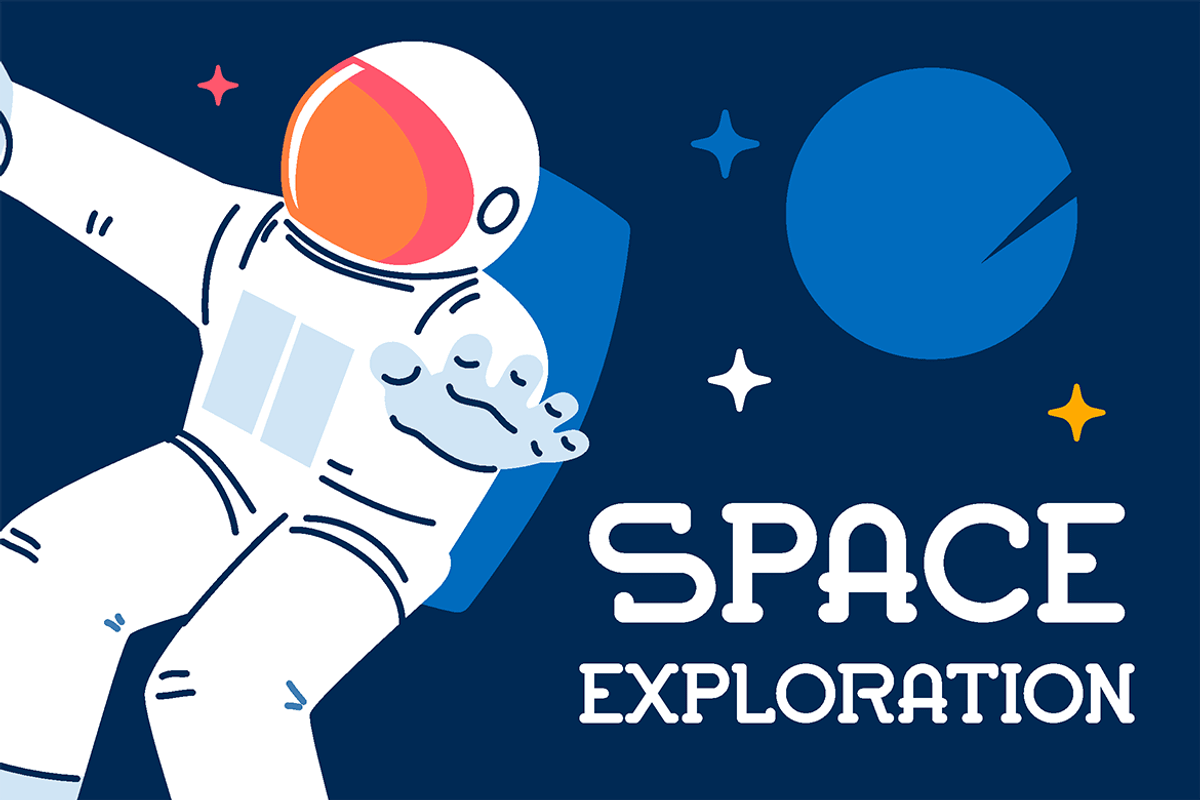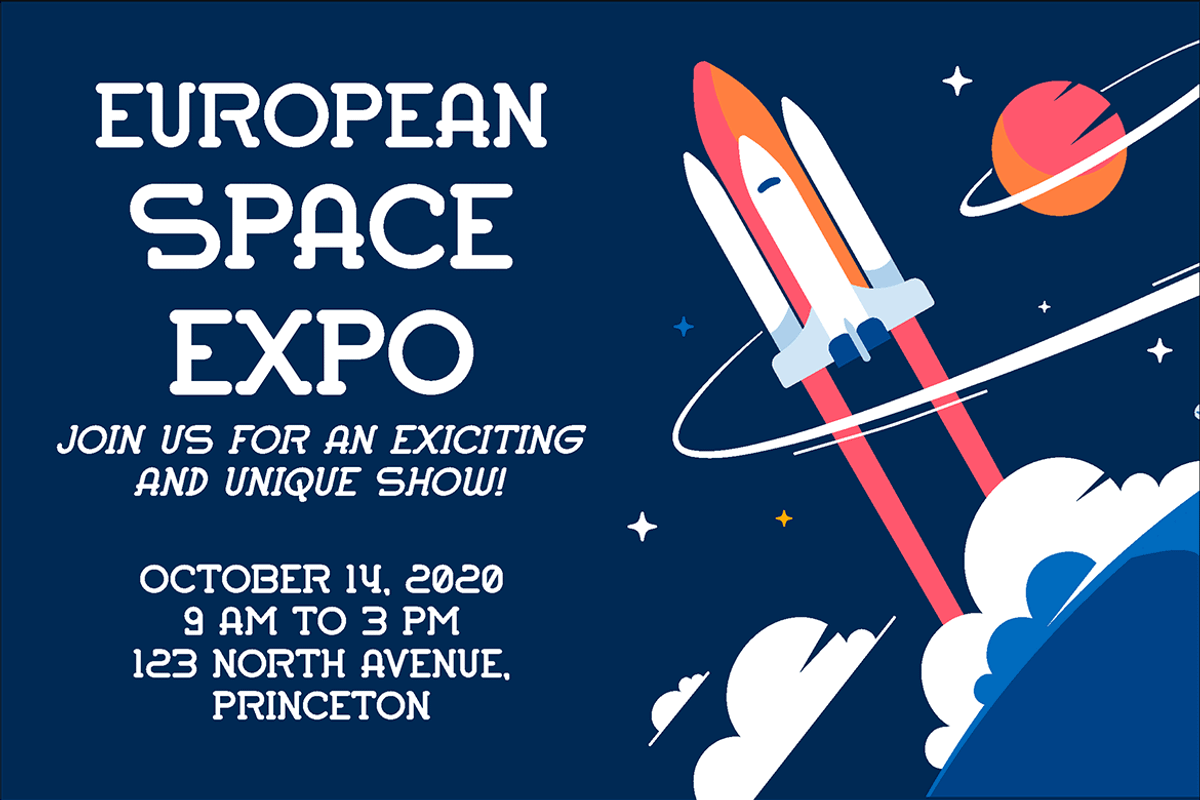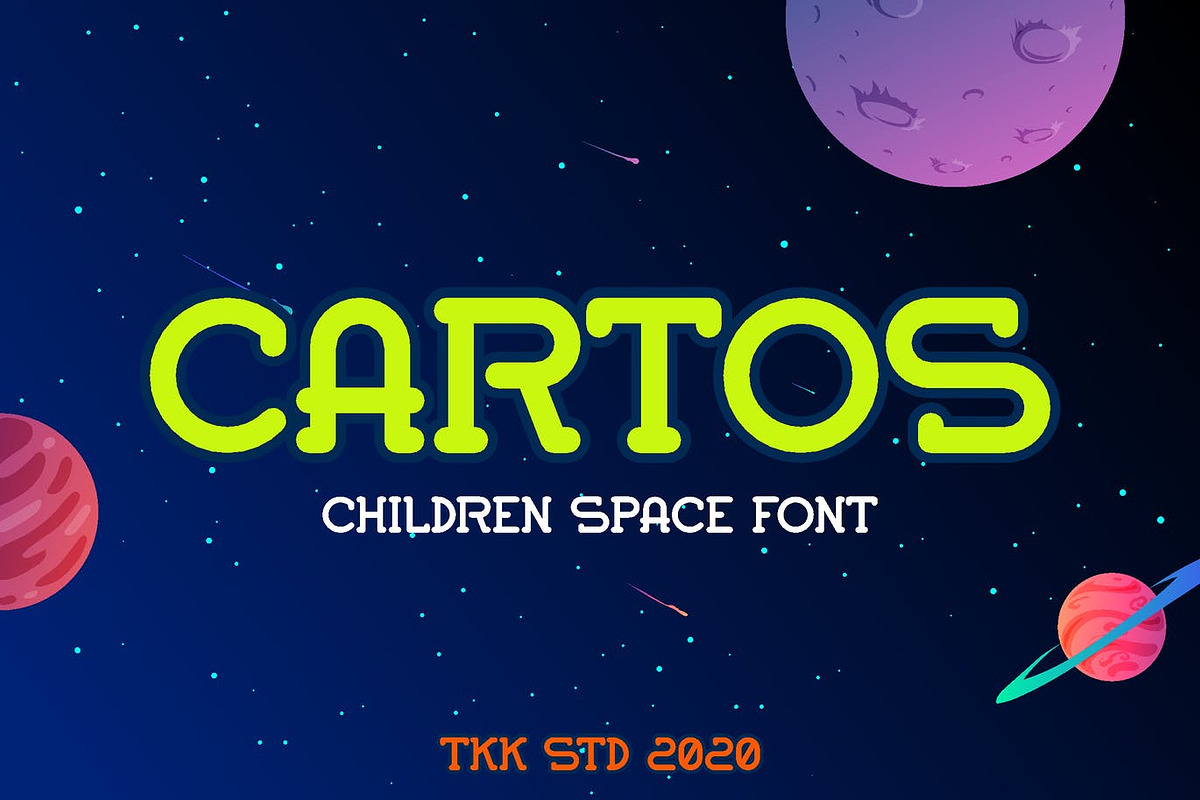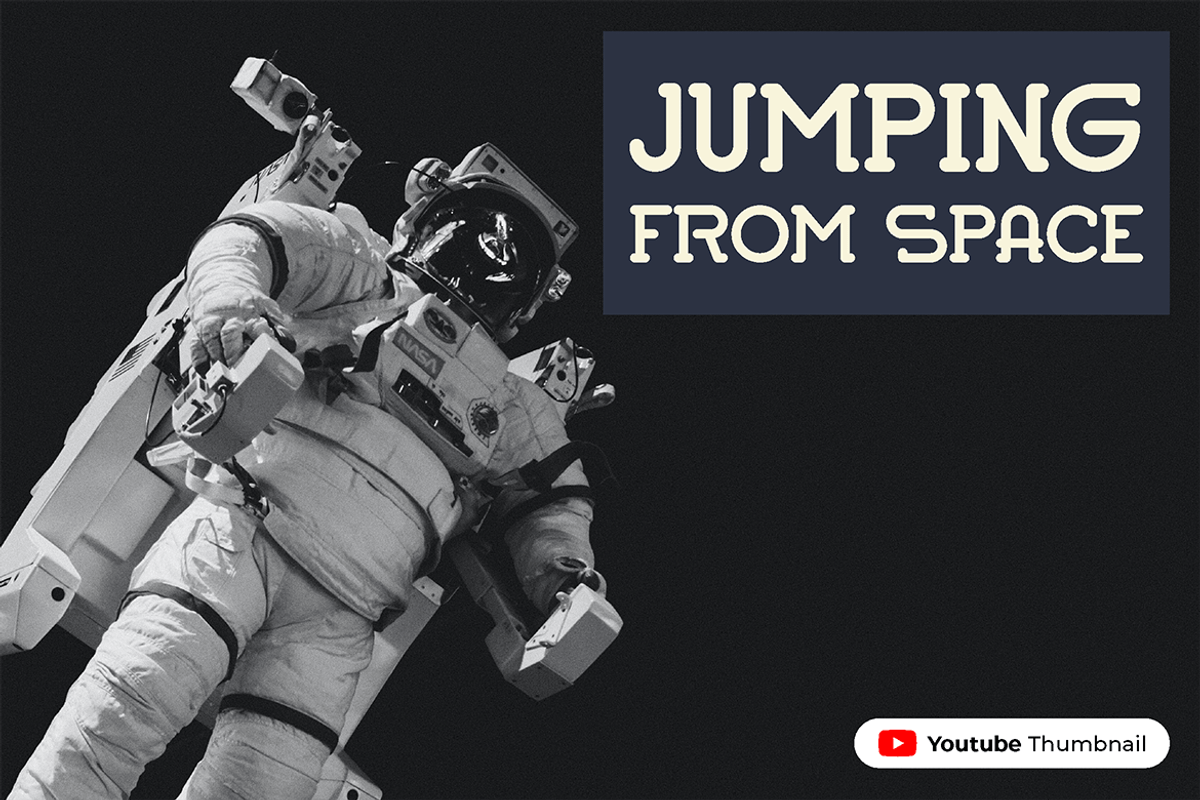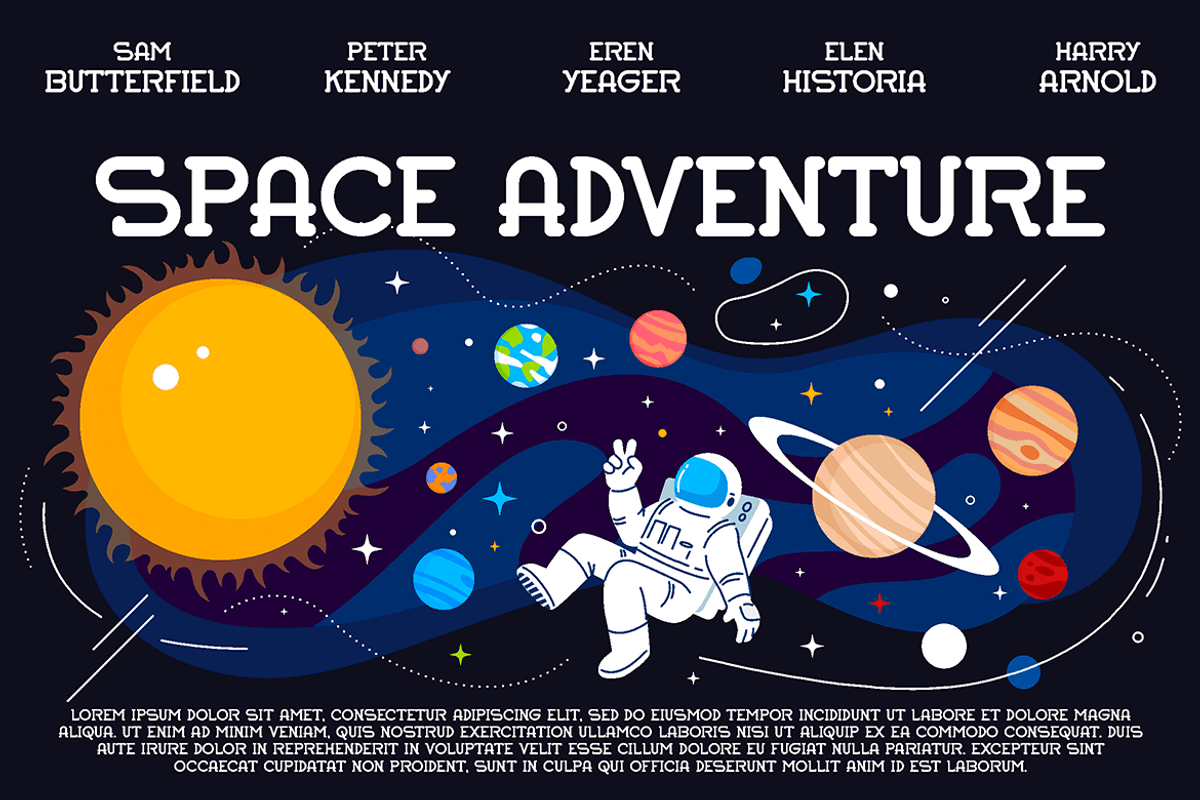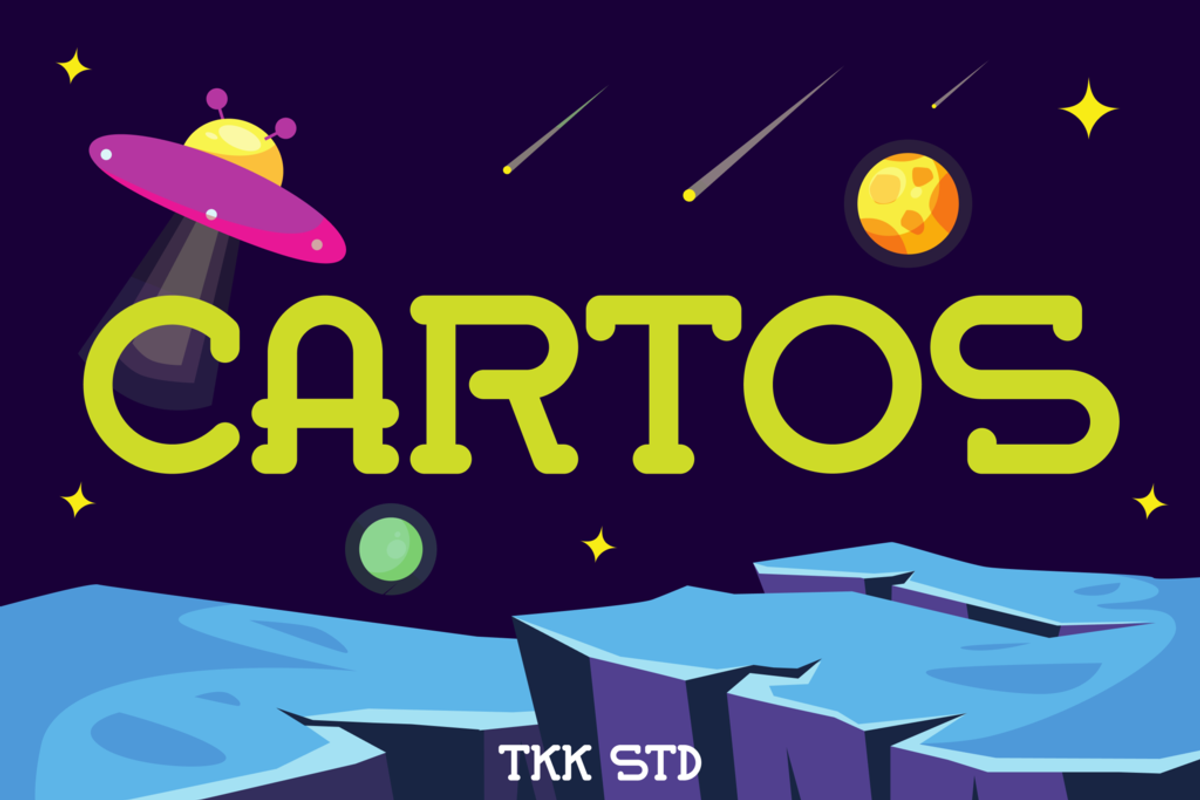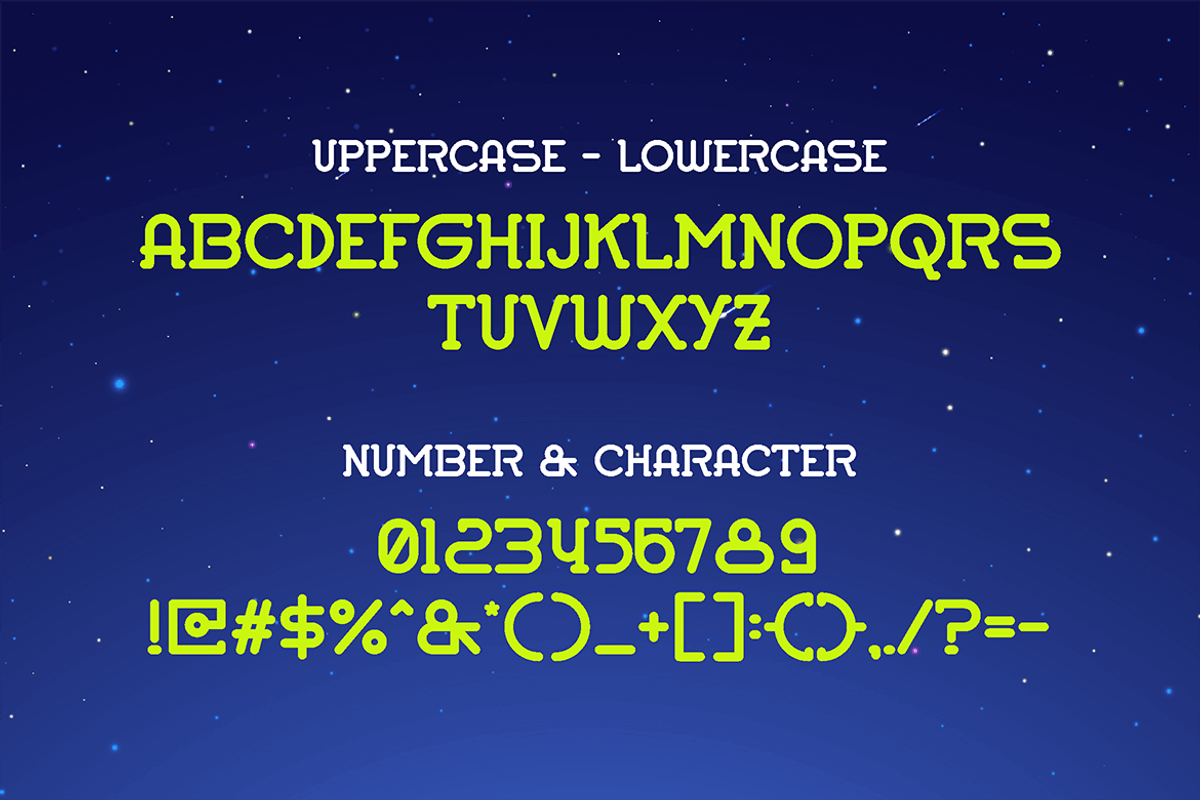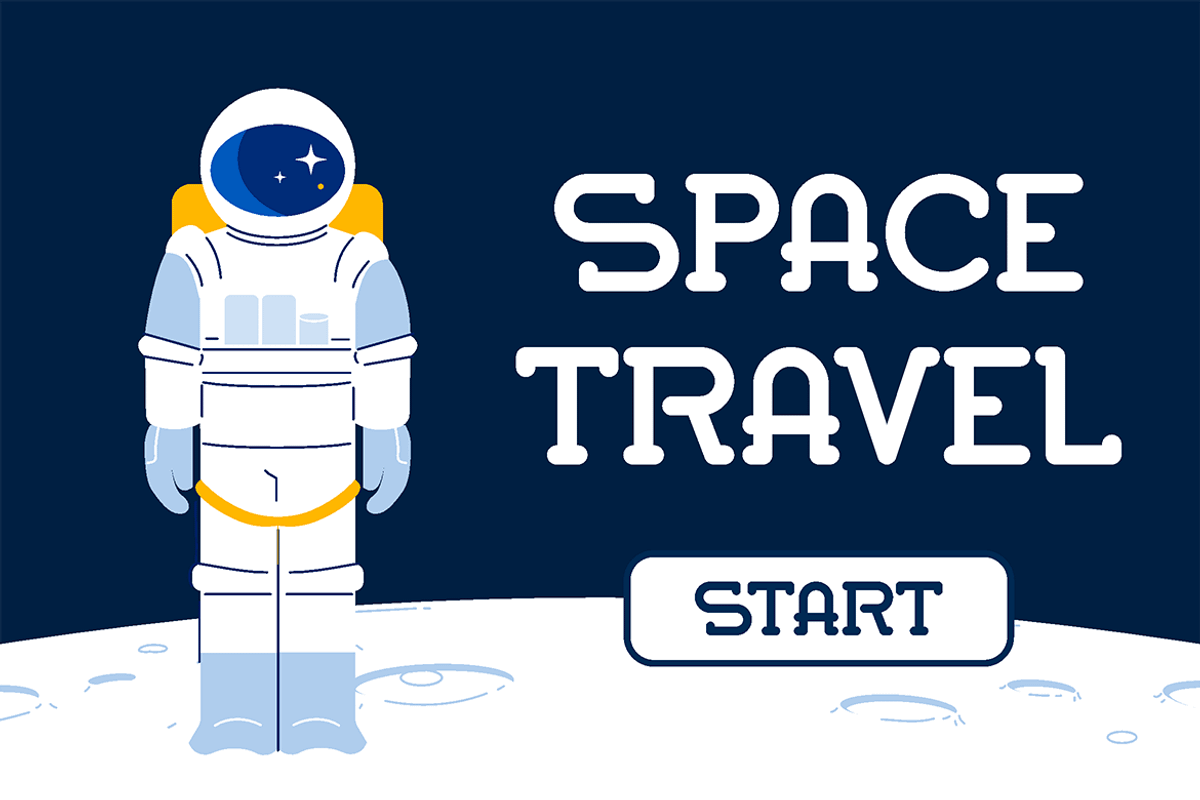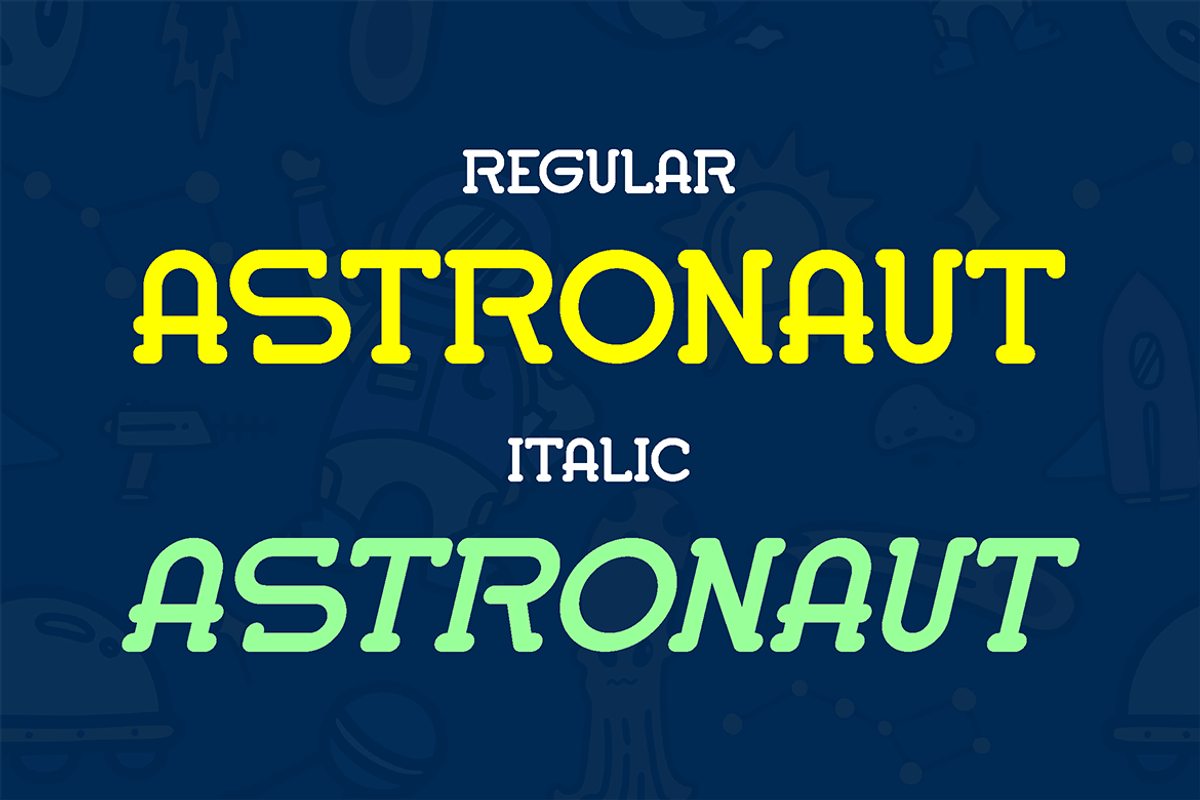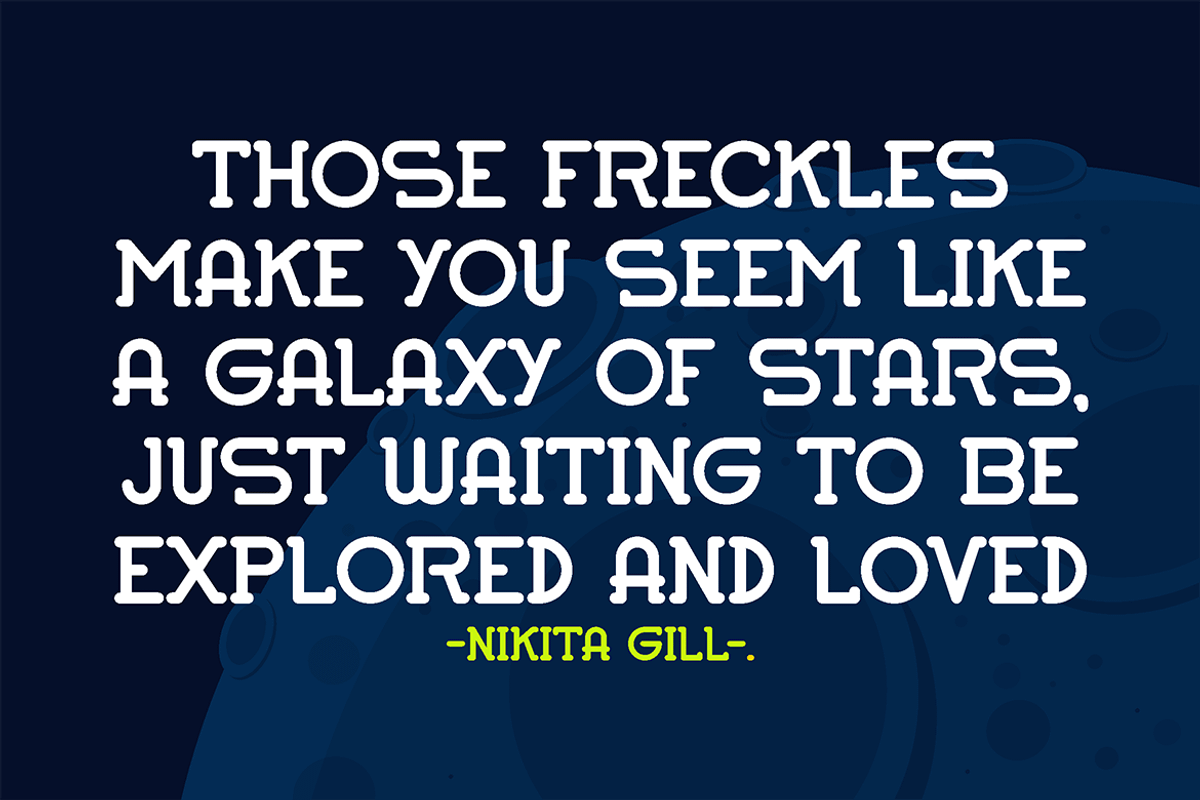
Cartos - Modern Font
Cartos modern font taking your children audience fantasy to a whole new level. The round corner and geometric shape emphasize the space and technology feels while keeping it friendly and approachable without making the kids dizzy and overwhelmed.
Suit perfectly for Online Games, poster, movie title, fast food menu, magazine, youtube covers, youtube thumbnails, social media page covers and so on...